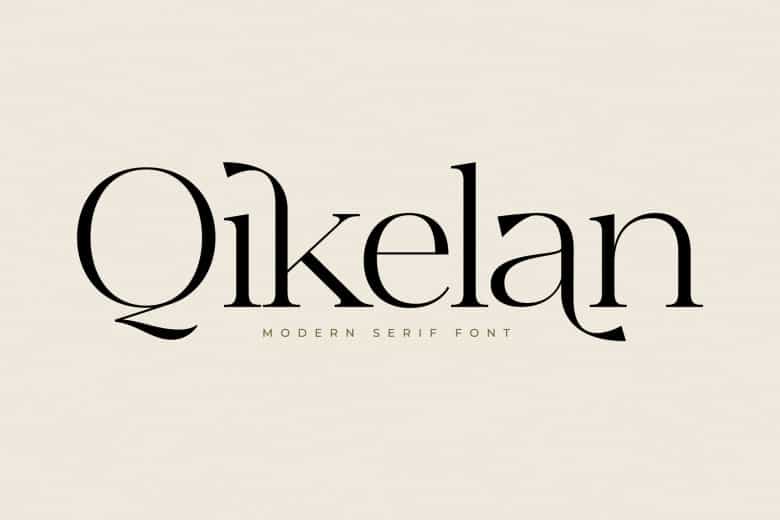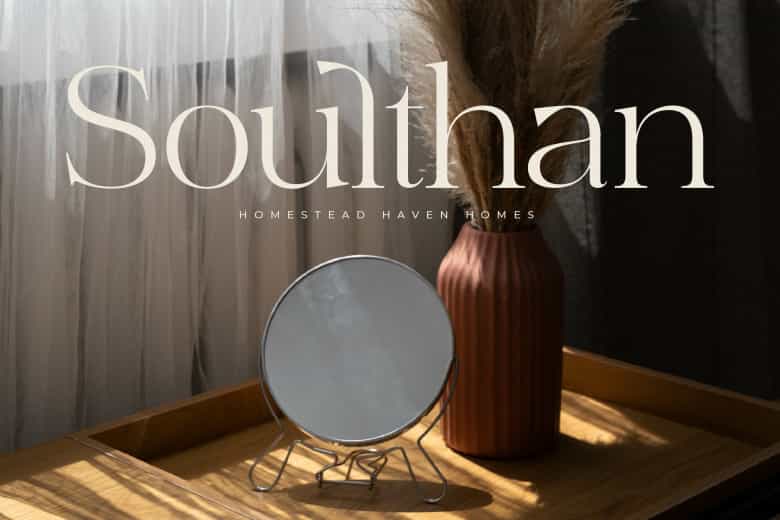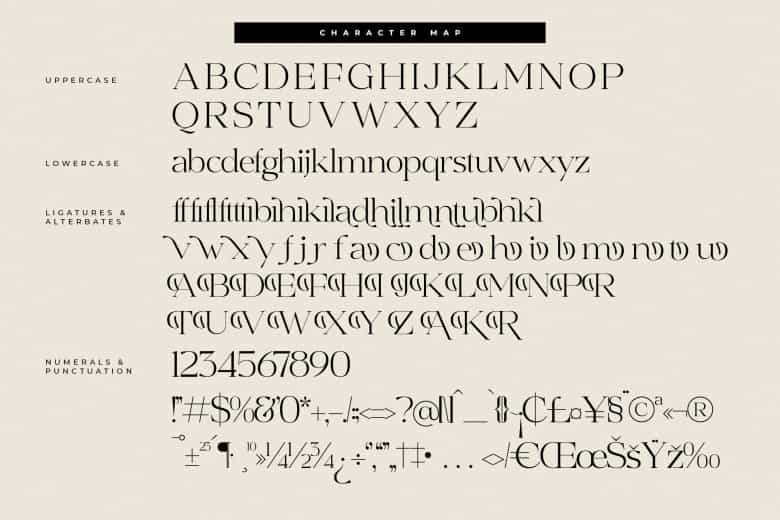
Qikelan is an elegant serif font, seamlessly fusing traditional elegance with modernity. The letterforms of Qikelan add sophistication to your design projects and is the ideal solution for projects requiring timeless yet luxurious style. Qikelan brings an edged-up aesthetic to typographic designs for modern projects.